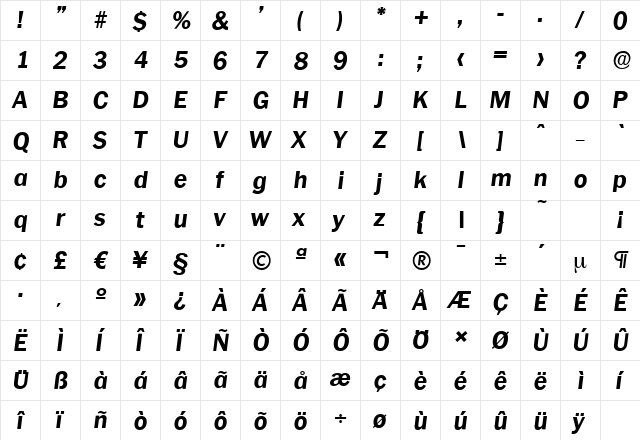
PlymouthSerial-Xbold Italic
Design Context for PlymouthSerial-Xbold Typeface
PlymouthSerial-Xbold offers clean, dependable letterforms without strong stylistic allegiance, making it a practical choice for designers who need flexibility. The dynamic lean of this cut emphasises speed and emphasis in any layout. The heavy weight commands attention and anchors typographic hierarchies.
Pro Tip: Use PlymouthSerial-Xbold for emphasis, pull quotes, and subheadings where its slanted energy can add rhythm to the layout.